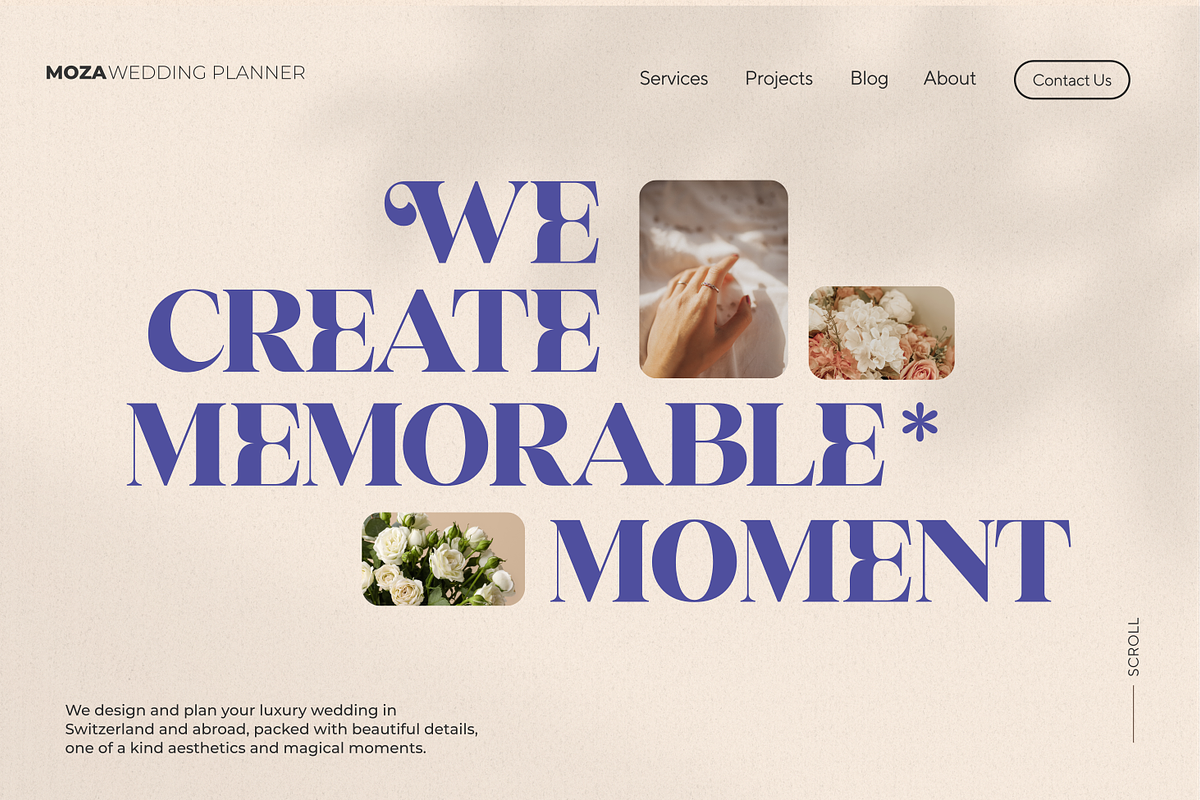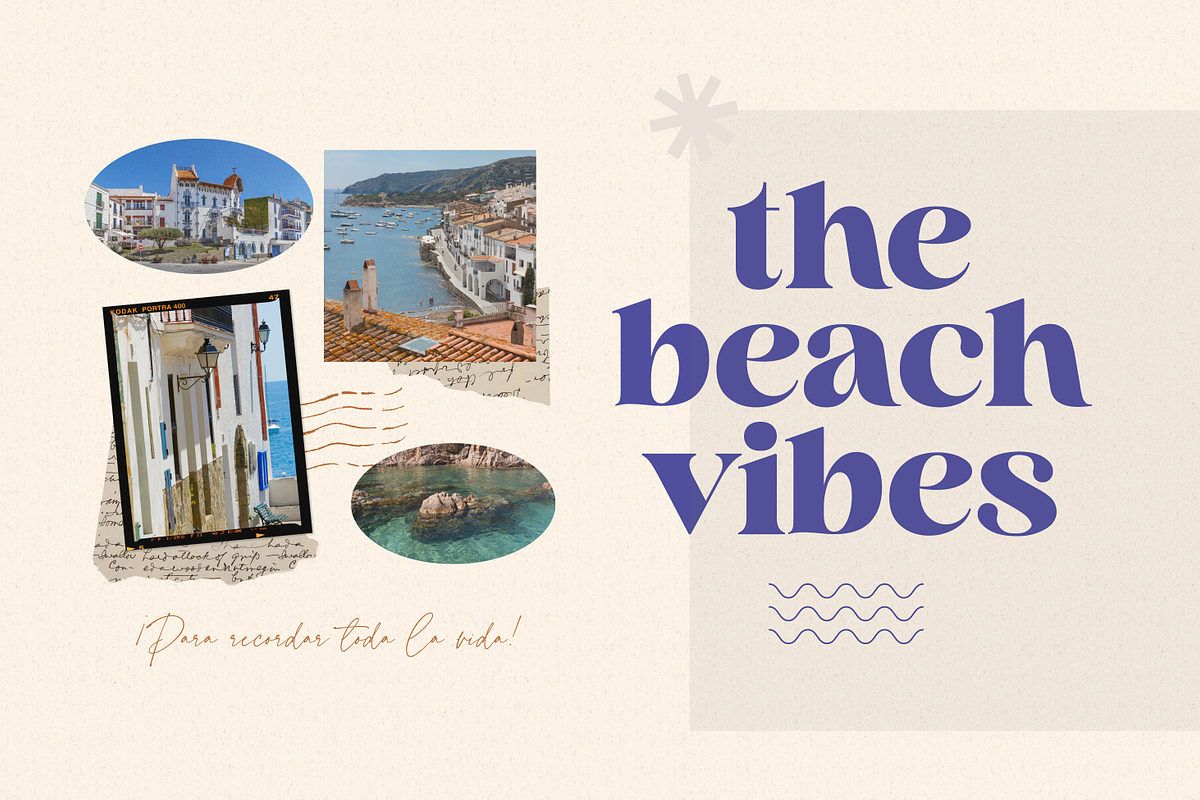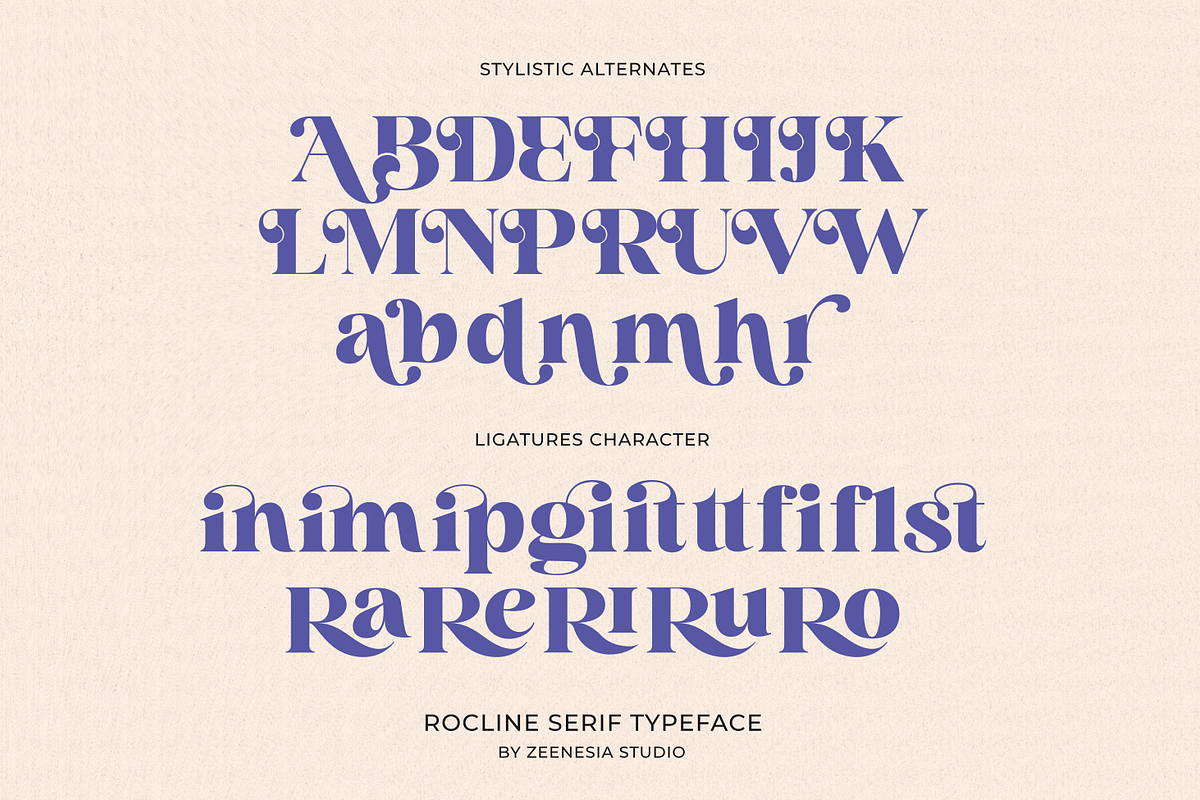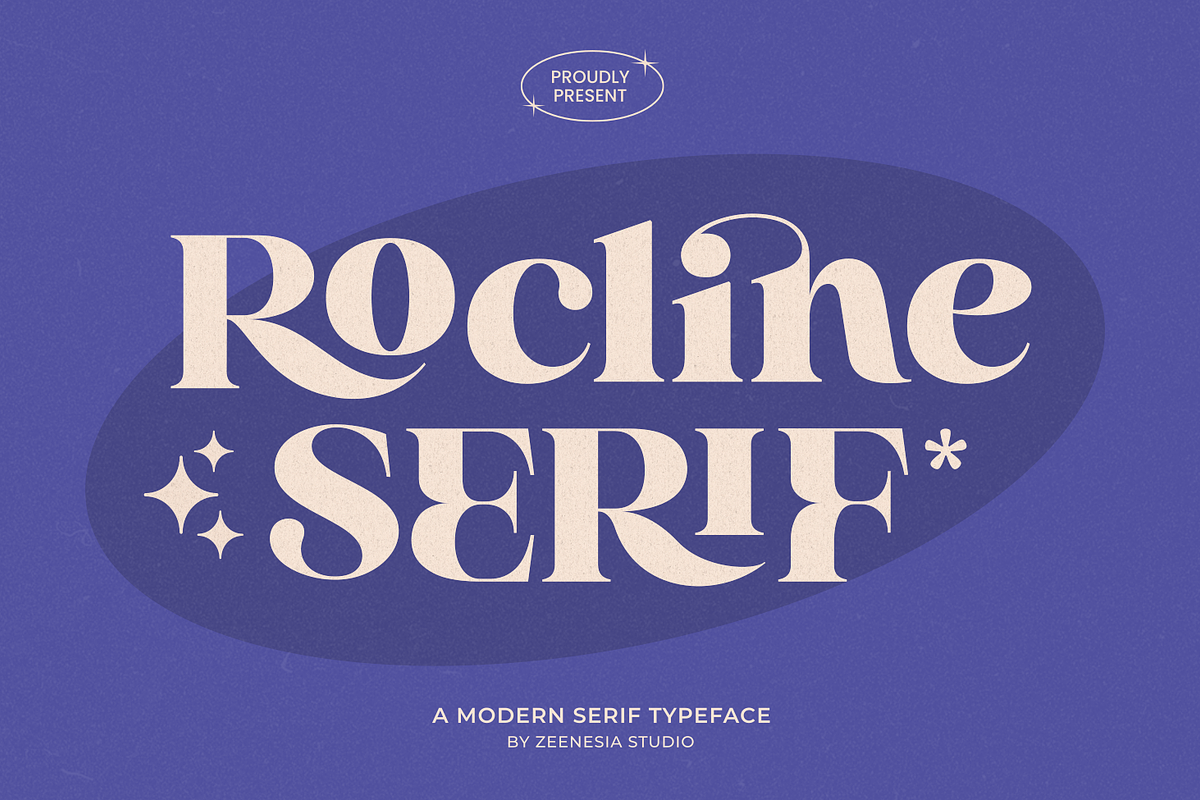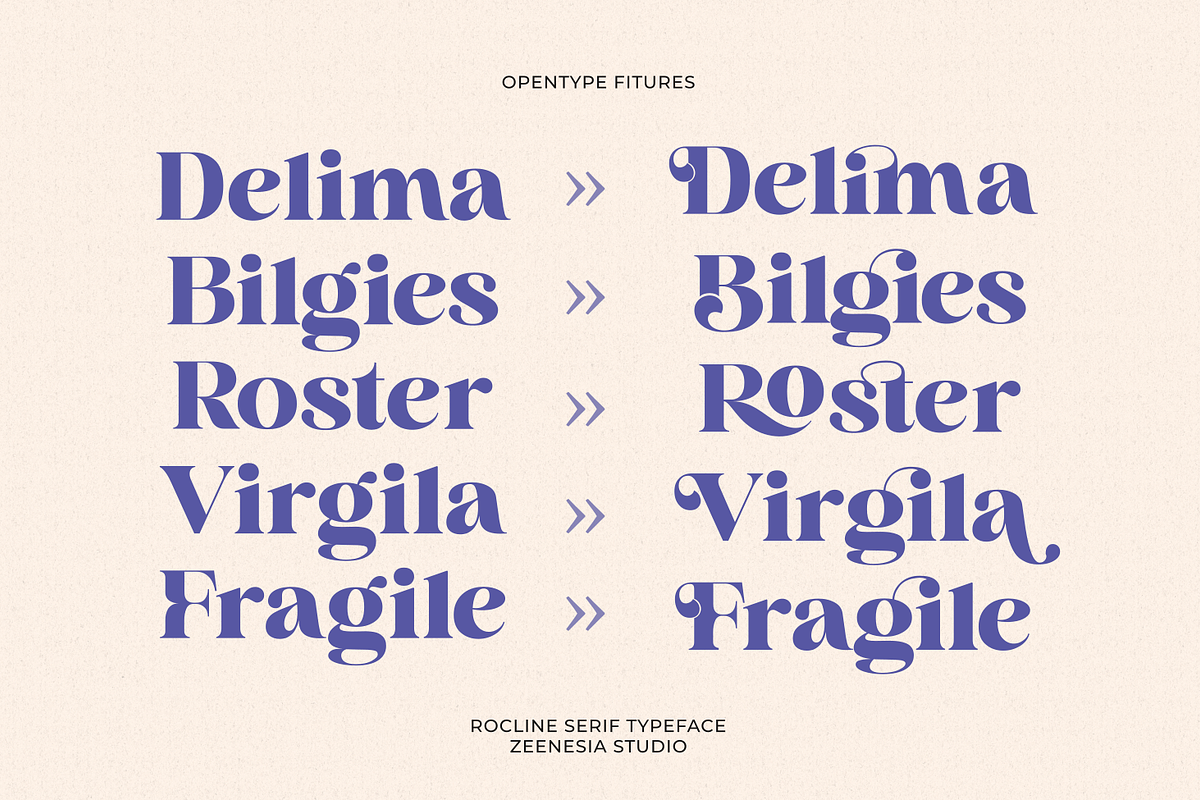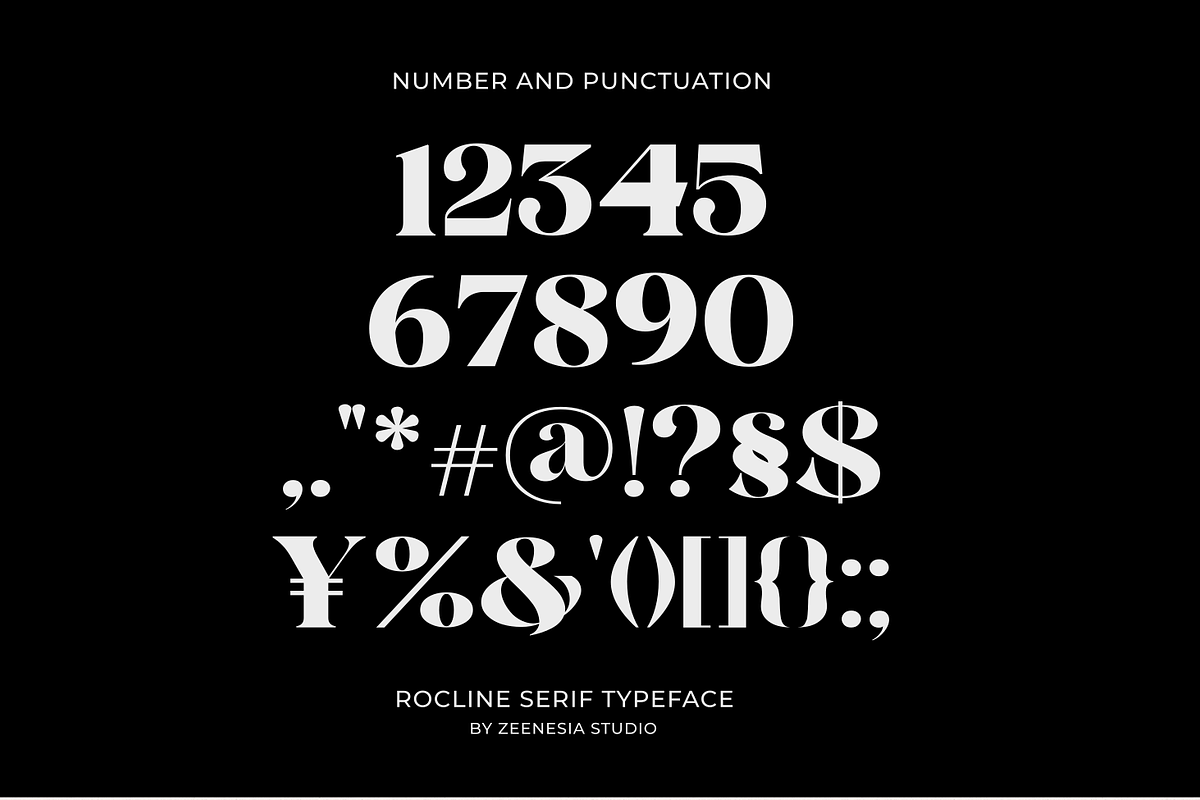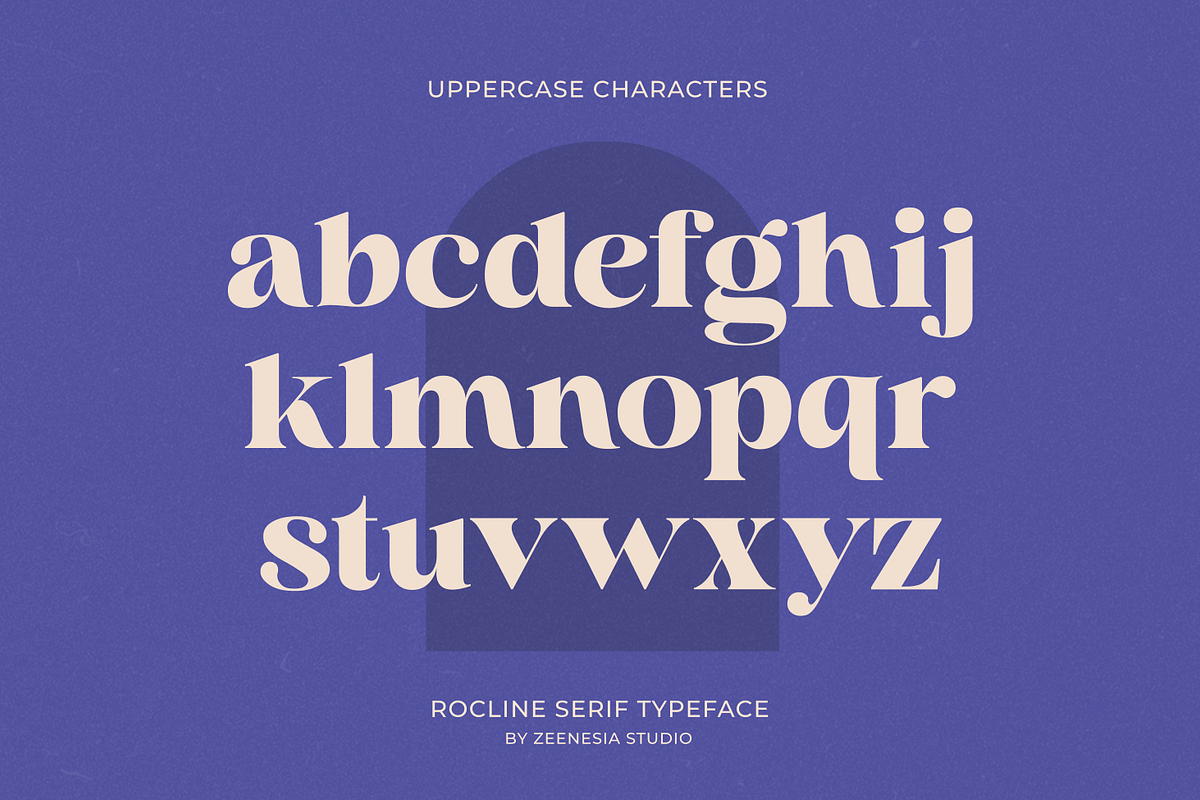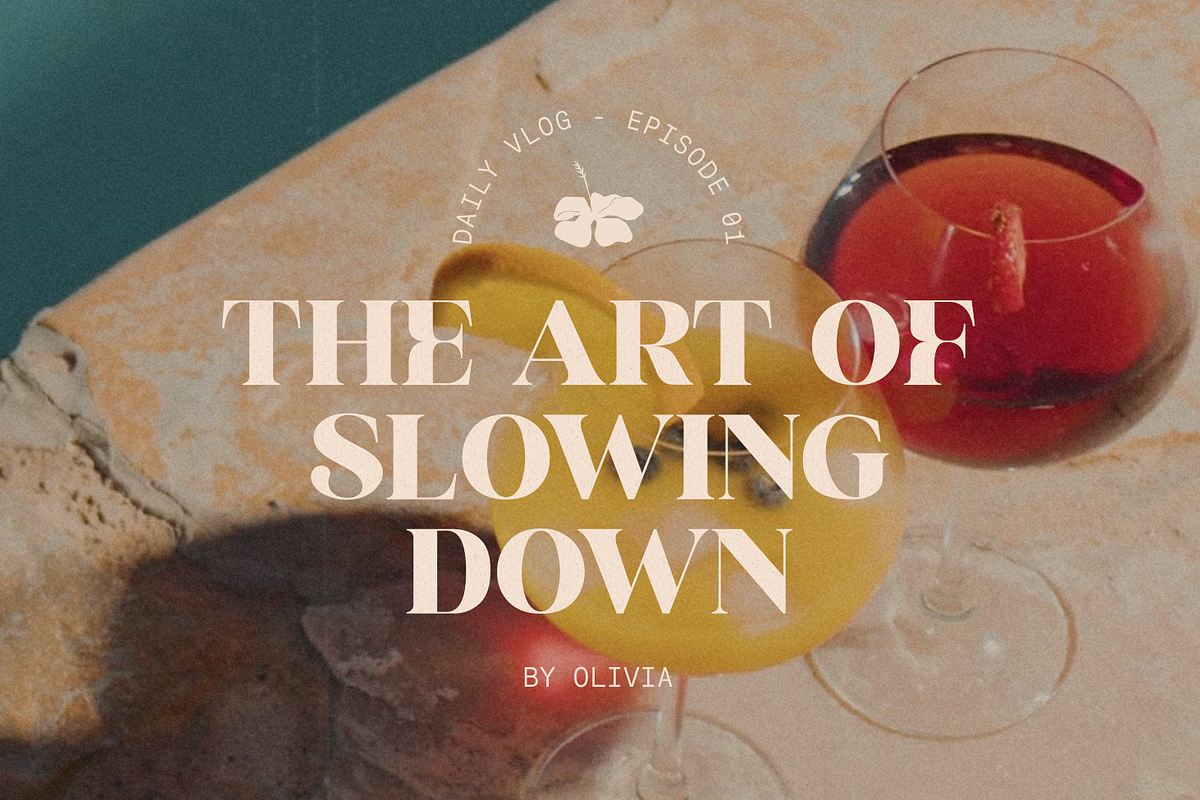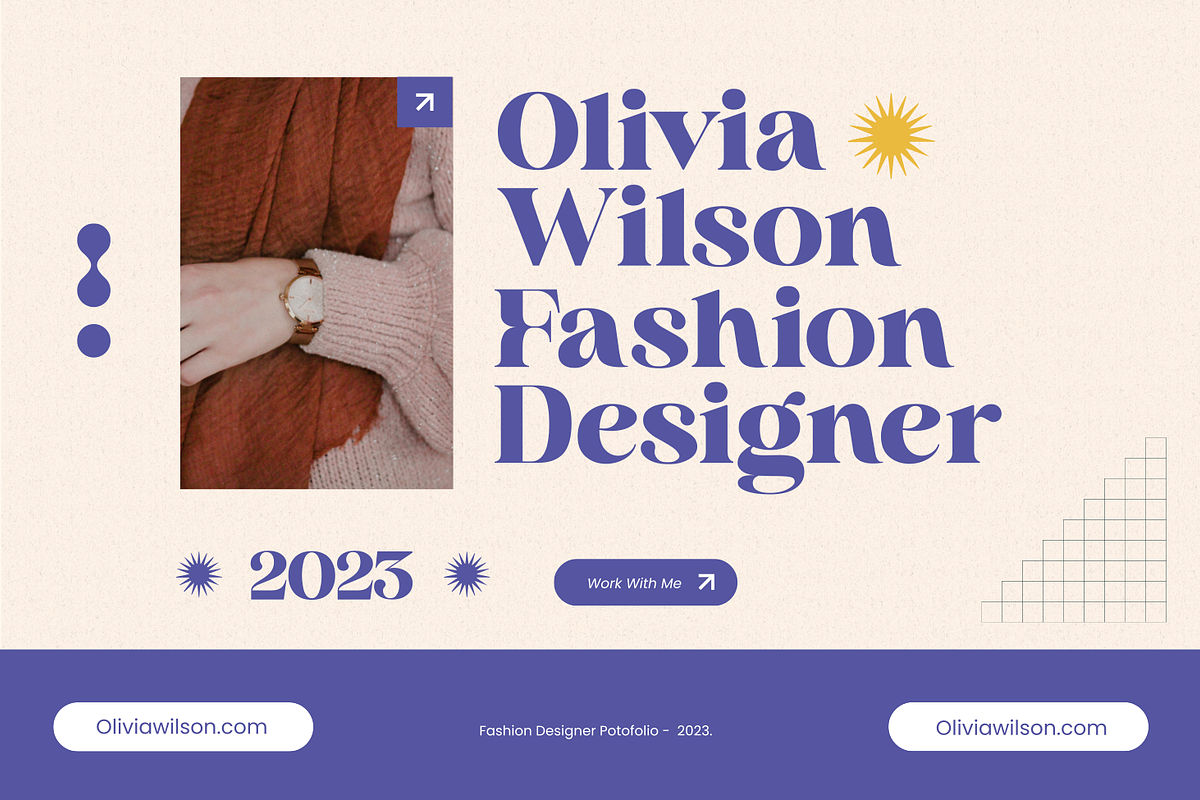
Rocline Serif
Introducing Rocline. Rocline is a retro styled, trendy and fashionable serif font. Use this font for your designs and explore its endless possibilities. Rocline is very versatile font that works great in large. well-suited for advertising, branding, logotypes, packaging, titles, headlines and editorial design. I created more much alternates variant and much natural ligatures to make this font very classy and look so beauty. Rocline was built with open type features make your project will be perfect. This font is PUA encoded which means you can access all of the amazing glyphs and ligatures with ease!